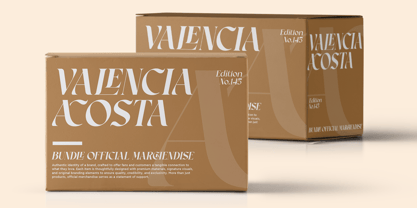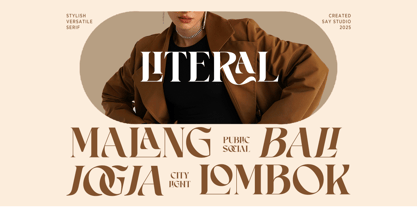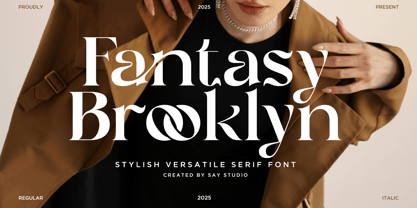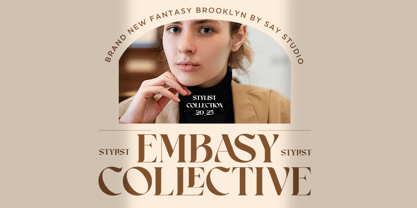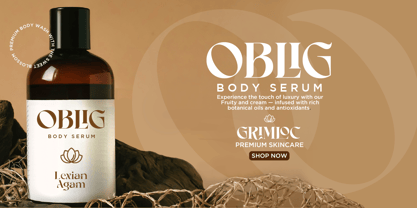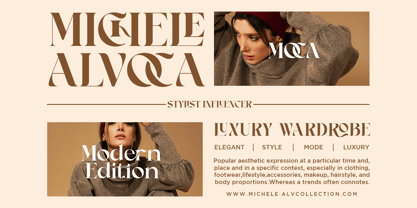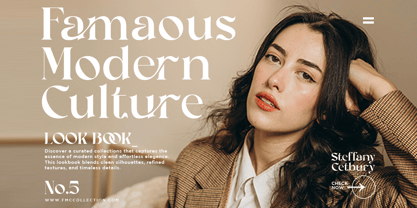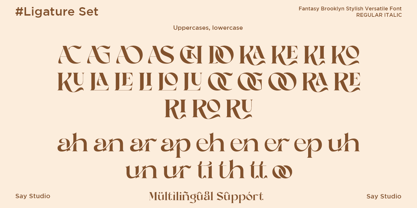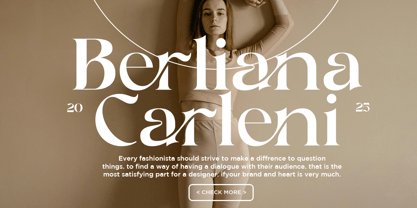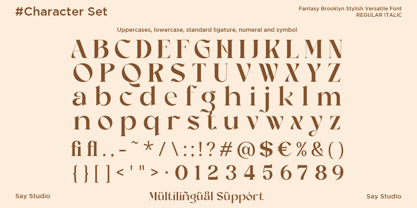
Fantasy Brooklyn
von Say Studio
Die Schriftfamilie Fantasy Brooklyn wurde von Mussyayin entworfen und von Say Studio veröffentlicht. Fantasy Brooklyn enthält 2 Stile und Familienpaketoptionen. Mehr über diese Familie
Fantasy Brooklyn is a stylish versatile serif typeface that blends timeless elegance with contemporary sophistication. Featuring distinctive artistic ligatures, refined curves, and graceful proportions, this typeface creates luxurious typography that feels both fashionable and memorable. Designed for premium visual communication, Fantasy Brooklyn delivers exceptional beauty across branding, editorial, packaging, and high-end creative projects.
Created for designers who seek elegance with personality, Fantasy Brooklyn performs beautifully in logos, fashion branding, cosmetic packaging, magazines, wedding stationery, social media, luxury campaigns, websites, and premium product presentations. Its multilingual support, stylish ligatures, complete punctuation, numerals, and carefully balanced letterforms ensure professional results across both print and digital media.
Whether you're building a luxury fashion identity, creating editorial headlines, designing boutique packaging, or crafting sophisticated marketing materials, Fantasy Brooklyn offers the perfect combination of modern aesthetics and classic serif craftsmanship. Its versatile character makes it an excellent choice for designers looking to create elegant, premium, and unforgettable visual identities.
• Regular and Italic
• Stylistic Ligature
• Uppercase and Lowercase
• Number, Symbol, and Punctuation
• Multilingual Support
Designer: Mussyayin
Foundry: Say Studio